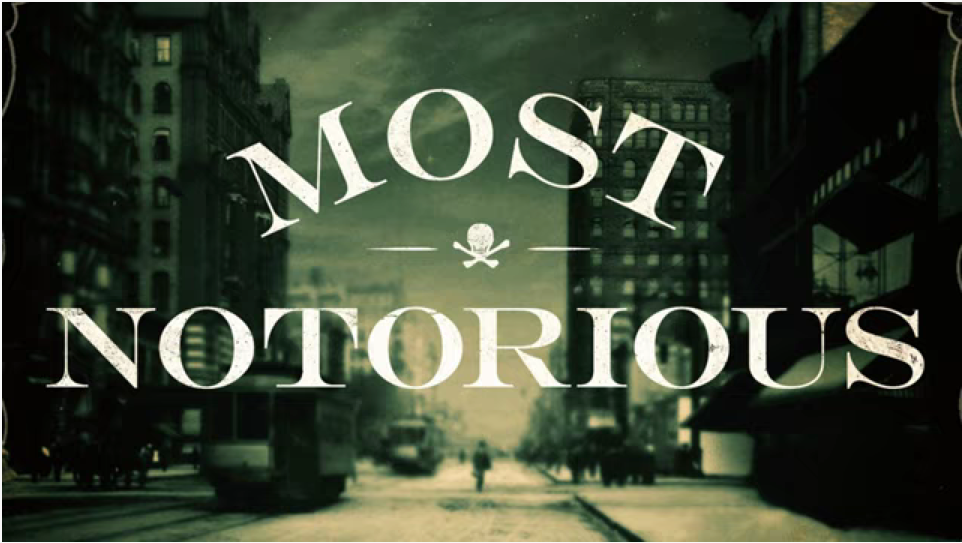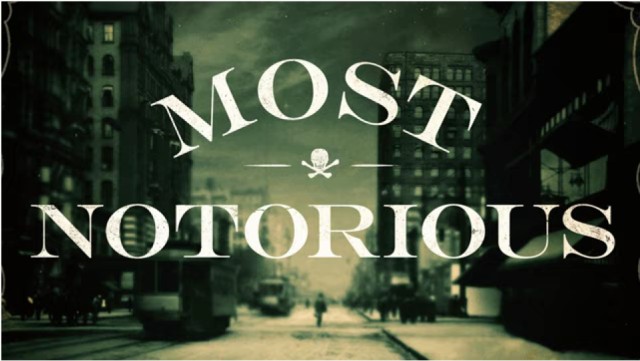
Looks a bit like Century Bold Extended or Scotch Roman but with a different uppercase "R"
This appears as the poster on a series of podcasts posted on You Tube about true crime history called, "Most Notorious." Here's the link:
Monotype Engravers